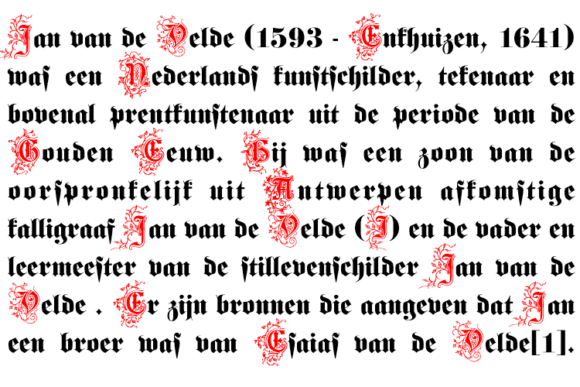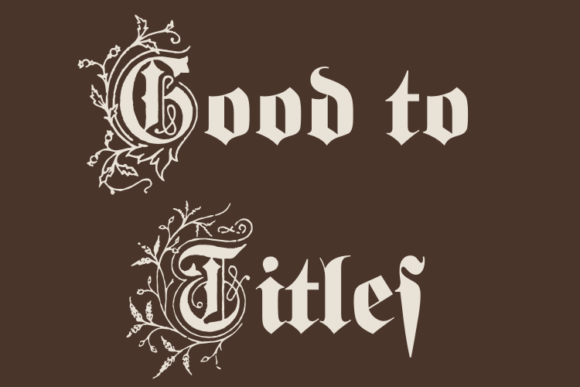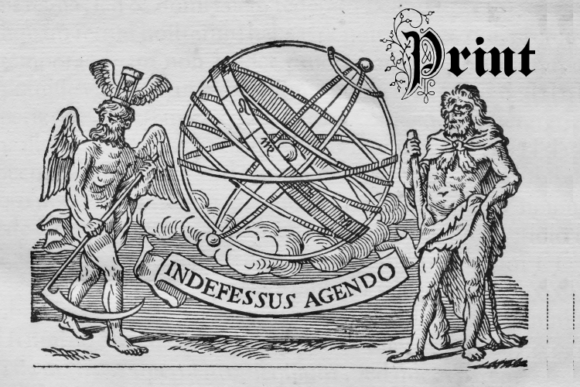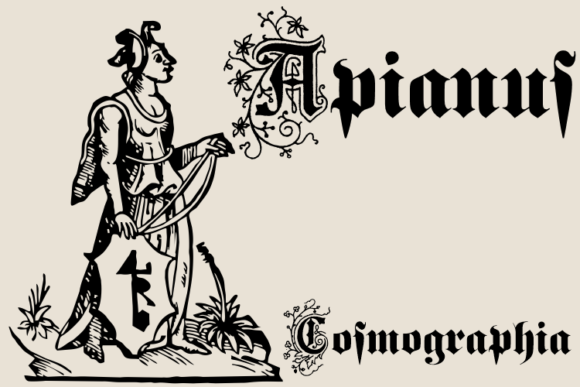
Introduction to Gotteslob Font
Gotteslob is a cool blackletter font.
This font is PUA encoded which means you can access all of the glyphs and swashes with ease Add it confidently to your projects, and you will love the results.